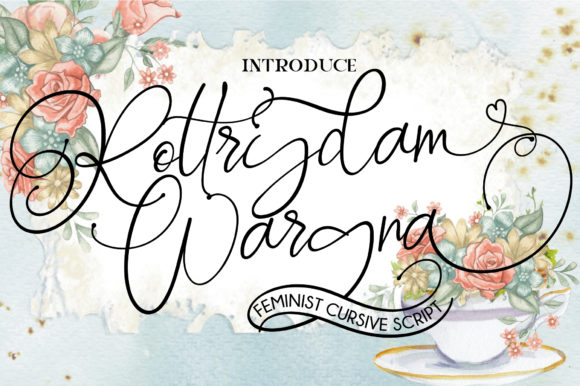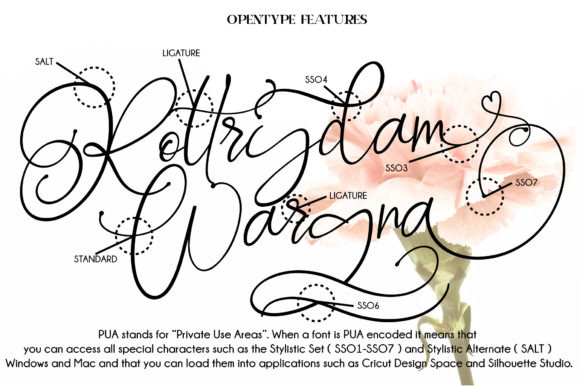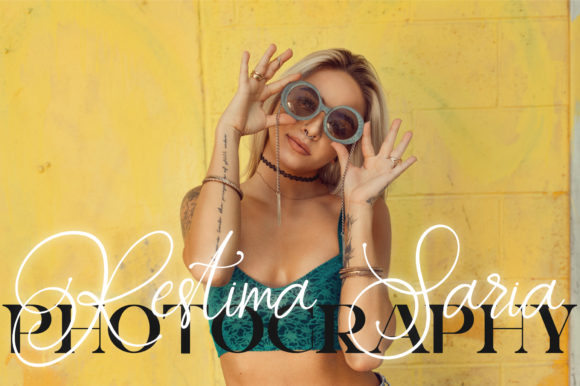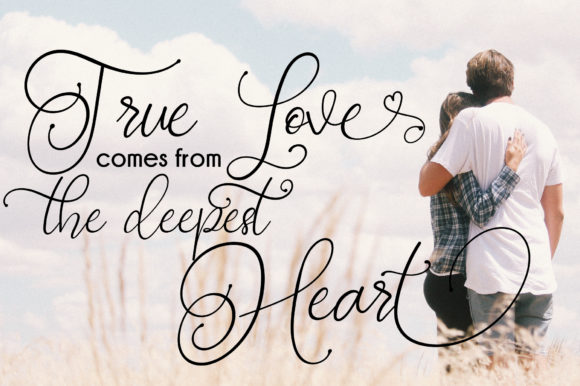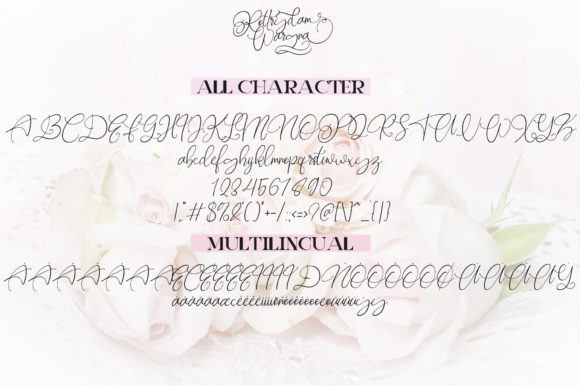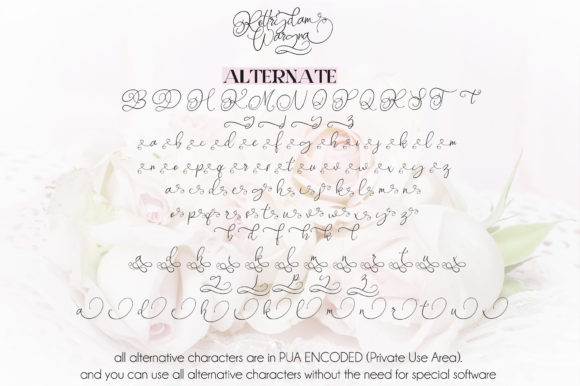
HomeScript FontsRottrydam Wargna Font Script Fonts Rottrydam Wargna Font FacebookXPinterestWhatsApp Rottrydam Wargna Font Poster 2 Rottrydam Wargna Font Poster 3 Rottrydam Wargna Font Poster 4 Rottrydam Wargna Font Poster 5 Rottrydam Wargna Font Poster 6 About Rottrydam Wargna Font Rottrydam Wargna is a stunning handwritten font with a delicate touch. Fall in love with its bold swashes! DOWNLOAD NOW People also explored Belma Flora Font The Brownis Font King of Love Font Play Web Page Font Summerland Font Glethalia Font Sending Font Little Pinky Font Magdalena Font 386 0 TagsRottrydam Wargna Font Previous articleLetter Marker FontNext articleFianna Font LEAVE A REPLY Cancel reply Comment: Please enter your comment! Name:* Please enter your name here Email:* You have entered an incorrect email address! Please enter your email address here Website: Save my name, email, and website in this browser for the next time I comment. Personal Use Free Edo SZ Personal Use Free Read more about this font Still Time Personal Use Free Read more about this font Stentiga Personal Use Free Read more about this font Geuli Font Personal Use Free Read more about this font BLOG Free Fonts Risk: Why Free Fonts Can Be Dangerous for Designers Free Fonts Risk: Why Free Fonts Can Be Dangerous for Designers Using free fonts is a common practice in web and graphic design. However, the... Top 10 Handwritten Fonts That Elevate Your Designs Elegant Wedding Invitation Fonts – Handwritten & Script Fonts Using Fonts in Digital Marketing: Tips to Strengthen Your Brand Identity